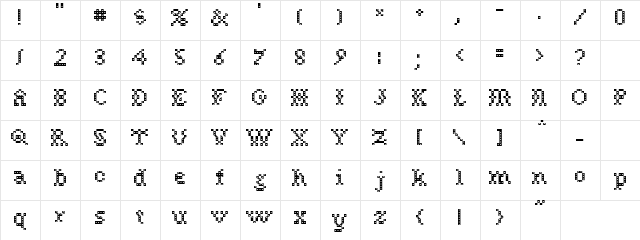
Somany Tiles Regular
Design Context for Somany Tiles Typeface
Somany Tiles is a composed and adaptable typeface that performs quietly and consistently across a wide range of design contexts.